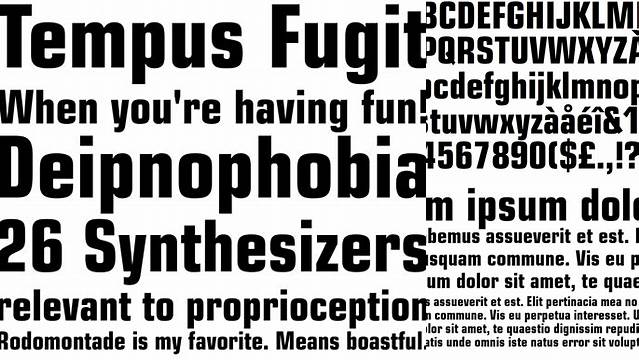
What is Eurostile LT Pro Condensed Bold?
Let's talk about Eurostile LT Pro Condensed Bold. This font isn't just another typeface; it's a piece of design history. Designed by Aldo Novarese in 1962, Eurostile is a geometric sans-serif font known for its clean lines and rectangular shapes. The "LT Pro" version is an updated and expanded release by Linotype, offering enhanced features and broader language support. The "Condensed Bold" variant, specifically, is a heavier, more compact version, making it ideal for headlines, signage, and any application where you need a strong visual impact. Its distinctive, almost futuristic appearance has made it a favorite for projects aiming to convey a sense of modernity, efficiency, and technological advancement. Think of it as the go-to font when you want your design to scream "cutting-edge" without actually shouting. It's bold, it's condensed, and it's undeniably stylish, lending a sense of authority and sophistication to any project it graces. Eurostile's appeal lies in its unique blend of geometric precision and subtle curves, creating a harmonious balance that's both eye-catching and easy to read. This makes it incredibly versatile, suitable for everything from corporate branding to editorial design. The condensed nature of the font allows you to pack more text into a smaller space, making it perfect for designs where space is at a premium. Moreover, the bold weight ensures that your message stands out, even from a distance. Its roots in the geometric sans-serif tradition are evident in its clean, unadorned letterforms, which prioritize clarity and legibility. However, Eurostile distinguishes itself with its subtle quirks and personality, preventing it from feeling sterile or impersonal. It's a font that manages to be both functional and expressive, a rare combination that has contributed to its enduring popularity.
Key Characteristics of Eurostile LT Pro Condensed Bold
When we're talking about Eurostile LT Pro Condensed Bold, it's crucial to understand its distinct features. First off, the geometric construction gives it a very structured and modern feel. Think of it as the architectural blueprint of fonts – every line, every curve is meticulously planned. The condensed width means the letters are narrower than usual, allowing you to fit more text in tight spaces. This is super handy for things like posters or website headers where you need to make a statement without taking up too much room. The bold weight, of course, makes it stand out. It's like the font is shouting (but in a classy way) for attention. This is perfect for headlines, titles, and anything you want to emphasize. It's got a certain futuristic vibe, too, thanks to its origins in the mid-20th century when space exploration was all the rage. This makes it a great choice for projects that want to evoke a sense of innovation or technology. But it's not just about looks. Eurostile LT Pro also has excellent readability, even in its condensed and bold form. The letterforms are clear and well-defined, making it easy on the eyes. Plus, the "LT Pro" version comes with a bunch of extra characters and features, like different language support and OpenType features, giving you more flexibility in your designs. Think of the condensed nature as a space-saving superhero, swooping in to rescue designs that are bursting at the seams. The bold weight acts like a spotlight, highlighting key information and drawing the reader's eye to the most important elements. And the geometric construction provides a solid foundation, ensuring that the font remains stable and legible, even at smaller sizes. Taken together, these characteristics make Eurostile LT Pro Condensed Bold a powerhouse of a font, capable of handling a wide range of design challenges with style and grace.
Common Uses of Eurostile LT Pro Condensed Bold
So, where do you typically see Eurostile LT Pro Condensed Bold in action? This font is incredibly versatile, making it a popular choice across various design disciplines. Its clean, modern aesthetic makes it a go-to for corporate branding, where it can convey a sense of professionalism and innovation. Think of logos, business cards, and website headers – Eurostile often plays a starring role. In the realm of advertising, this font is used to grab attention and make a statement. Its bold weight and condensed form are perfect for headlines and call-to-actions, ensuring that your message doesn't get lost in the noise. Ever noticed that many science fiction movies and video games use similar-looking fonts for their titles and on-screen text? That's because it has a distinctly futuristic feel, making it ideal for conveying a sense of technological advancement and cutting-edge design. It's also a frequent choice for signage and wayfinding systems, thanks to its excellent readability, even from a distance. Airports, train stations, and shopping malls often use Eurostile to guide visitors and provide clear information. You might also spot it in editorial design, particularly in magazines and newspapers that want to project a modern and sophisticated image. Its clean lines and geometric forms can add a touch of elegance to layouts, while its bold weight ensures that headlines stand out. Eurostile's versatility extends beyond the purely visual, influencing the very tone and message of the designs it graces. Its clean lines and geometric shapes evoke a sense of order and efficiency, while its bold weight commands attention and conveys authority. This makes it a powerful tool for shaping perceptions and creating a lasting impression.